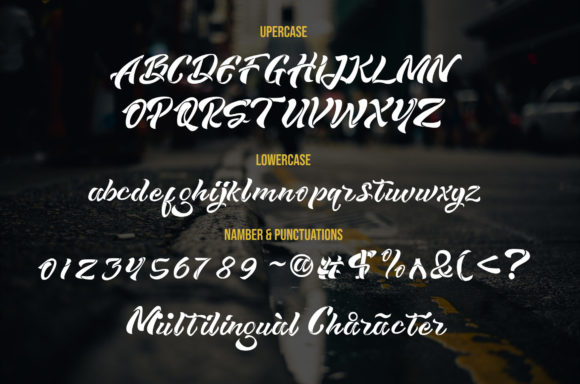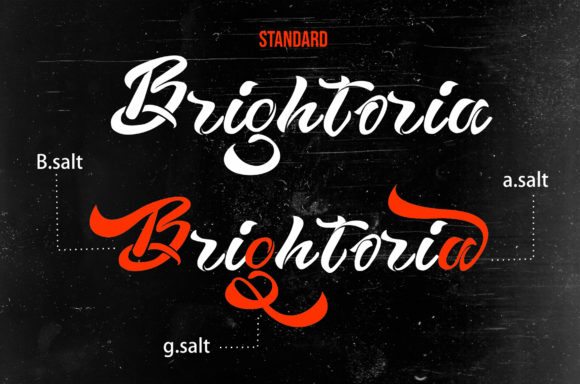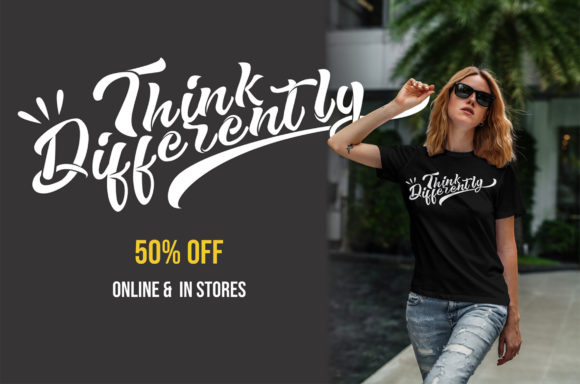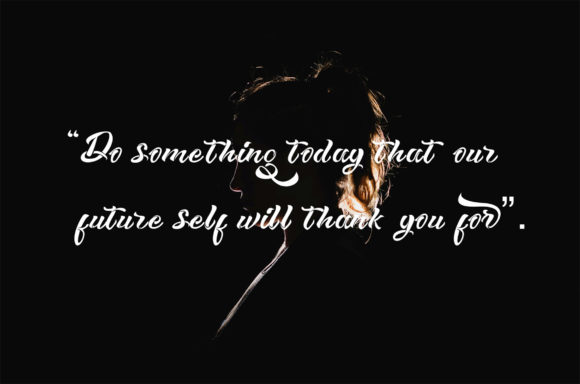
About Brightoria Font
Brightoria is a script font with a handwritten look, with several OpenType features such as Regular and stylistic alternate. This font is used for various types of graphic designs, such as logotype, title, apparel, crafting, packaging, advertising etc.